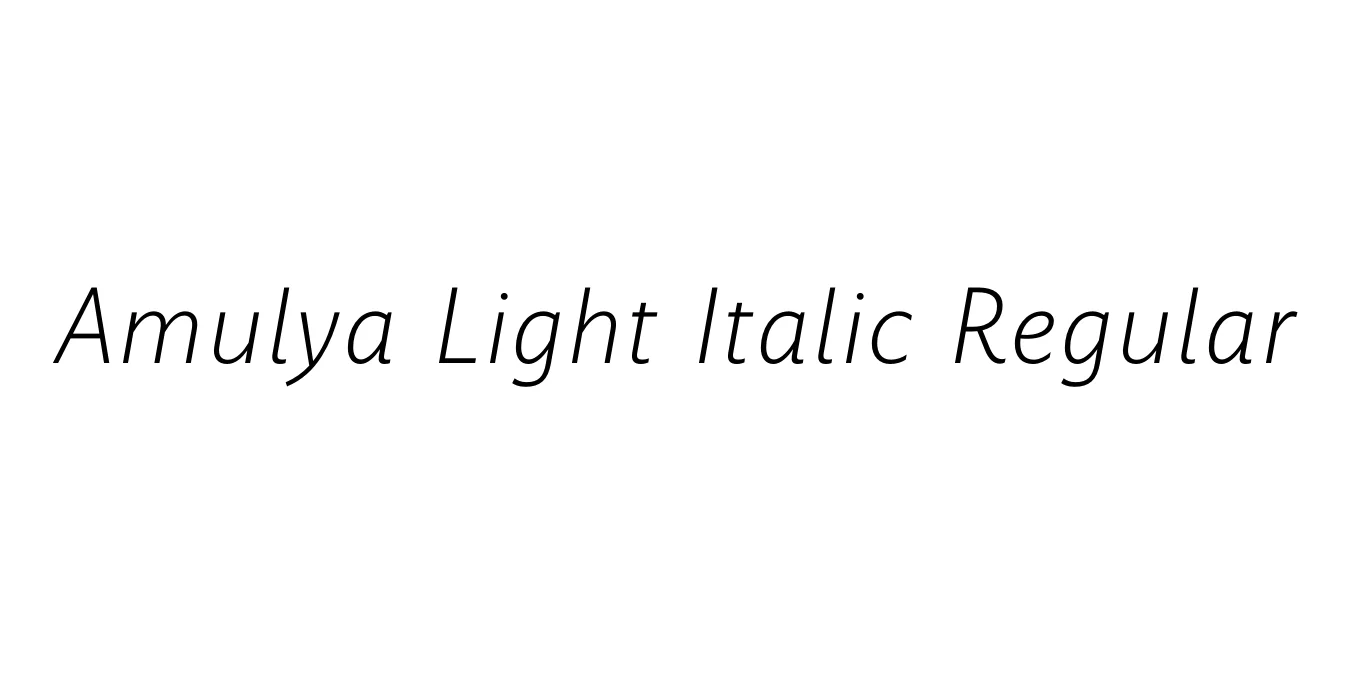
Amulya Light Italic Regular
Designed by Indian Type Foundry (ITF)
Amulya is a refined sans-serif typeface family designed by the Indian Type Foundry, merging geometric precision with a subtle humanist touch. The Light Italic Regular weight offers a delicate and graceful slant, providing a rhythmic texture to blocks of text while maintaining exceptional legibility in both digital and print environments.
Designed for modern versatility, Amulya is widely used in high-end editorial work and contemporary branding. Its clean lines and balanced proportions make it an excellent choice for UI/UX designers who seek a neutral yet sophisticated aesthetic. The italic variant specifically adds a layer of elegance and emphasis, making it a favorite for minimalist design projects.
Amulya Light Italic Regular Best Uses
Perfect for creating a clean and modern user interface or readable body copy.
Ideal for sophisticated logo designs and professional brand identities.
Great for captions, pull quotes, and stylized headings in magazines or digital lookbooks.